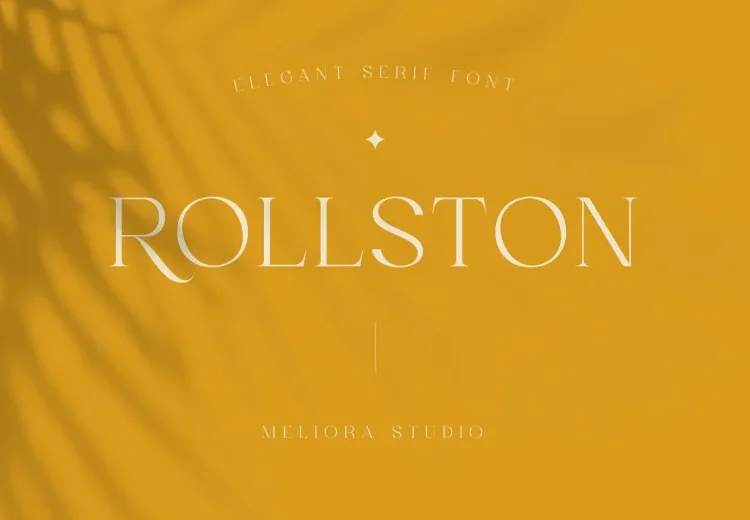
Rollston Font
Rollston is an elegant and distinctive serif typeface, designed to bring sophistication to every project. Its refined alternates and ligatures add a unique touch, making it a versatile choice for a wide array of design applications. Whether you’re creating logos, branding materials, editorial layouts, or decorative typography, Rollston’s elegant style ensures your work stands out with poise and charm.
Rollston Font